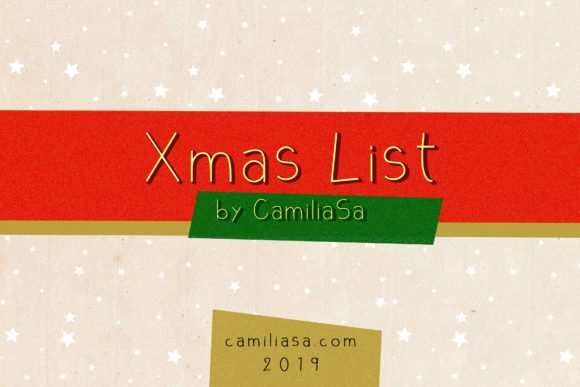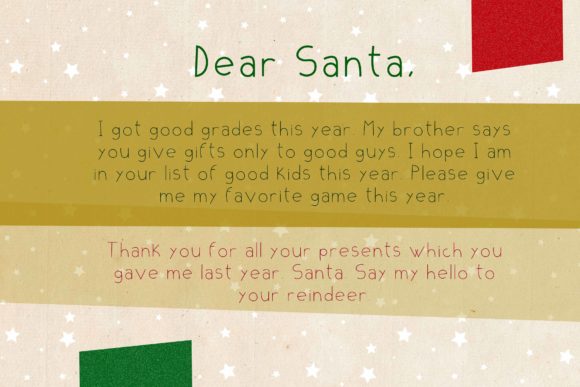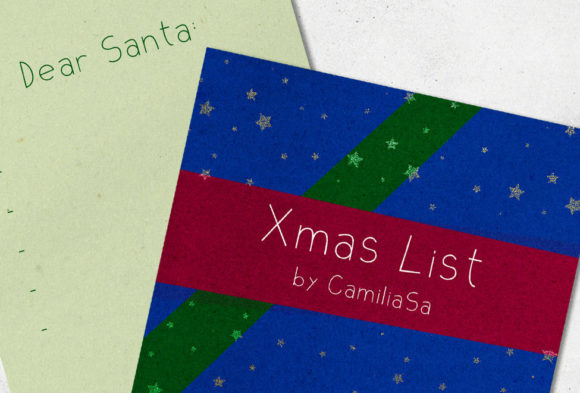
HomeScript FontsXmas List Font Script Fonts Xmas List Font FacebookXPinterestWhatsApp Xmas List Font Poster 2 Xmas List Font Poster 3 About Xmas List Font Xmas List is the perfect font to get you ready for the holiday season. Fall in love with its playful look & feel! DOWNLOAD ON CREATIVE FABRICAThis font is sold and delivered by Creative Fabrica. Font Canyon may earn a commission if you buy through this link. People also explored Hammond and Wheatley Font Love Timer Font Bravarya Sky Font MaoopMan Font Kalimba Love Font Mg Dalenaf Font Funny Rainbow Font Meticulous Font Kids Solid Black Bella Canvas 3413Y Mock 433 0 TagsXmas List Font Previous articleAsalarees FontNext articleHappy Halloween Font LEAVE A REPLY Cancel reply Comment: Please enter your comment! Name:* Please enter your name here Email:* You have entered an incorrect email address! Please enter your email address here Website: Save my name, email, and website in this browser for the next time I comment. Personal Use Free Cherry Ai Personal Use Free Read more about this font Entin Personal Use Free Read more about this font Soulties Personal Use Free Read more about this font Elliane Personal Use Free Read more about this font BLOG How to Install and Use Fonts on Windows, macOS, and Web Projects How to Install and Use Fonts on Windows, macOS, and Web Projects Fonts are a crucial part of design and branding. Whether you’re designing a... The 10 Best Handwriting Fonts to Add Personality to Your Designs Transform Your Website: Elevate Your Typography with 7 Best Web Font Generators Top 7 Google Fonts Alternatives for Faster and Privacy-Friendly Web Design (2025)